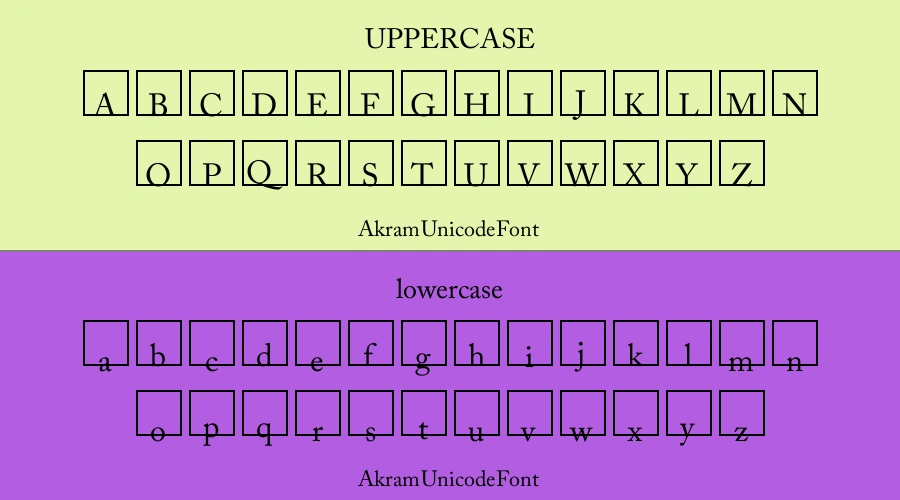
About Akram Unicode Font
Akram Unicode Font represents a sophisticated approach to type design, balancing decorative alternates with consistency. Perfect for annual reports, this font family showcases impressive consistency and system compatibility throughout its character set. Designers appreciate its versatility and reliability.
Designers will appreciate nuanced touches including dynamic forms and expert sets, adding sophistication to any project. These features become apparent in specification lists, where color consistency matters most. The careful treatment of x-height proportion and historical reference ensures optimal performance.